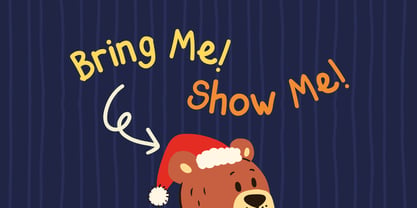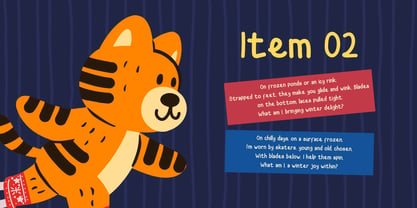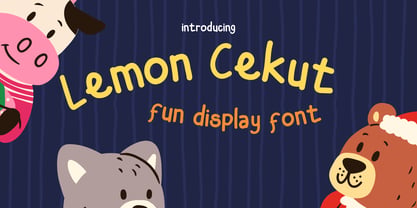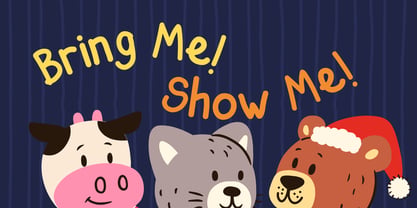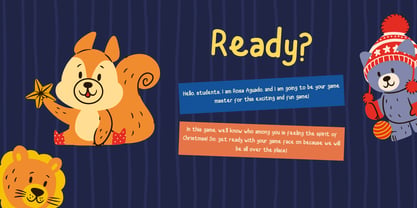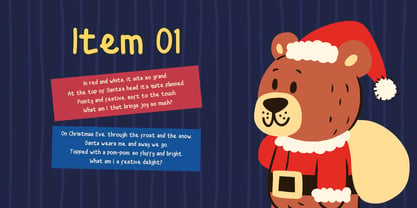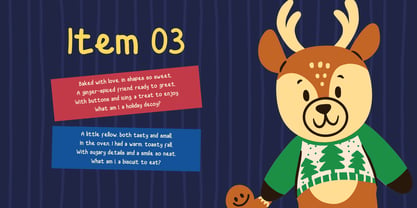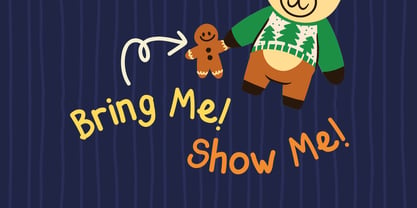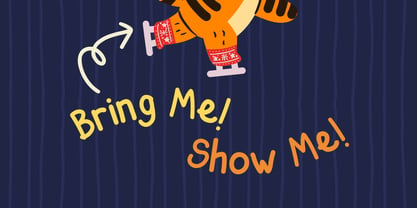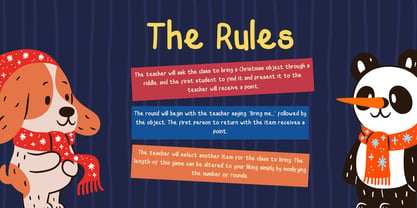
Lemon Cekut
La familia tipográfica Lemon Cekut fue diseñada por Yoga Dwi Cahyono y publicada por Pitvlas Type. Lemon Cekut contiene 2 estilos y opciones de paquete familiar. Más información sobre esta familia
Lemon Cekut is a cheerful and child-friendly display font, designed with a playful style and soft curved letterforms. Suitable for children's-themed designs, product packaging, story books, educational posters, and birthday invitations. Each character in this font has a unique personality that creates a fun and cheerful atmosphere. The cute and colorful visual elements further enhance the fun and adorable impression.